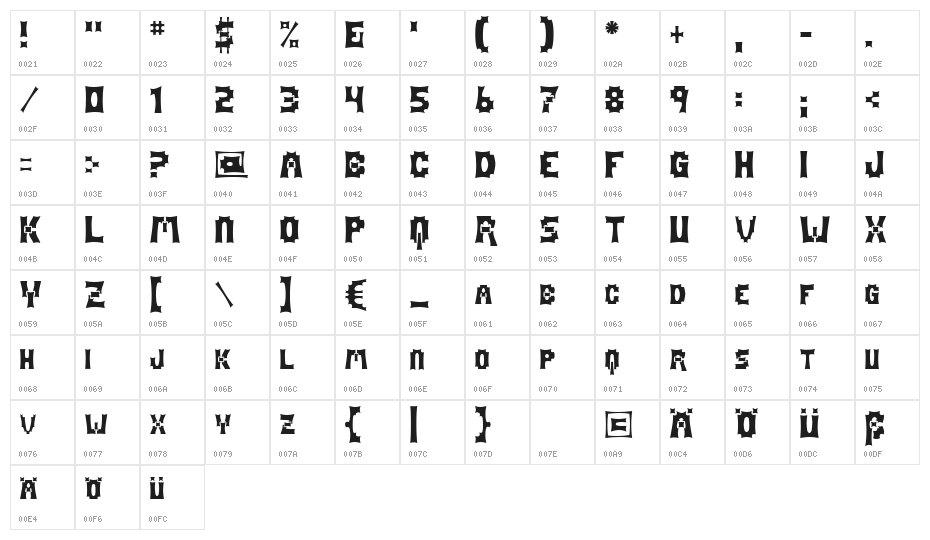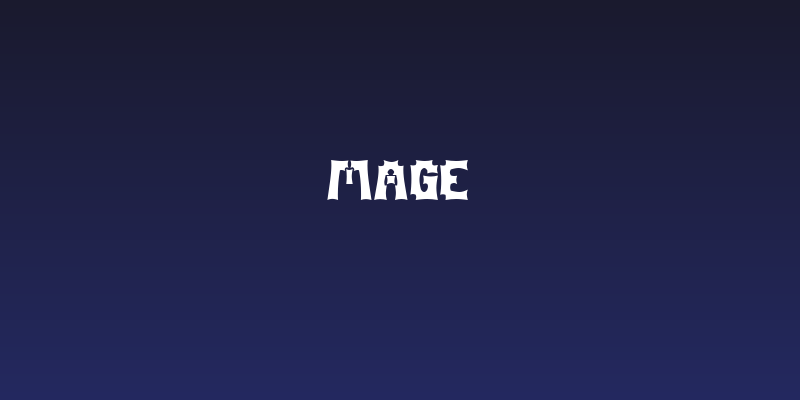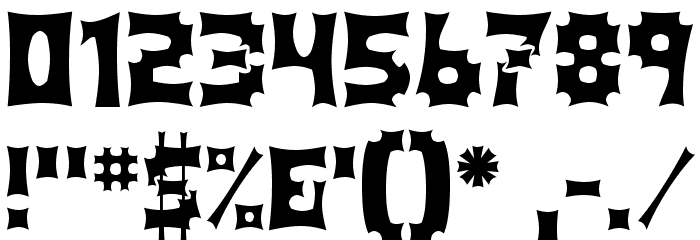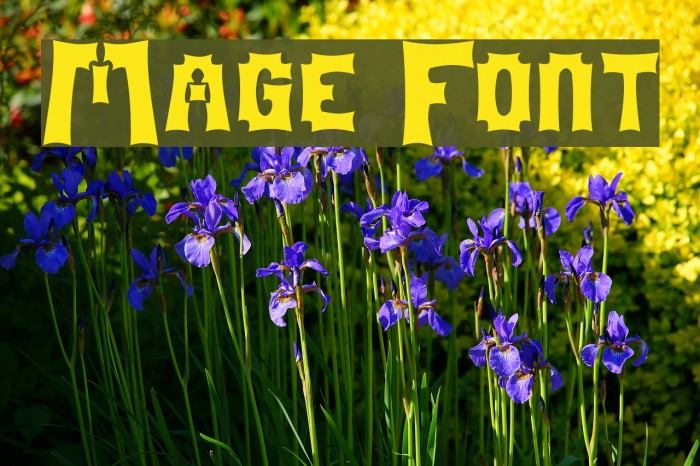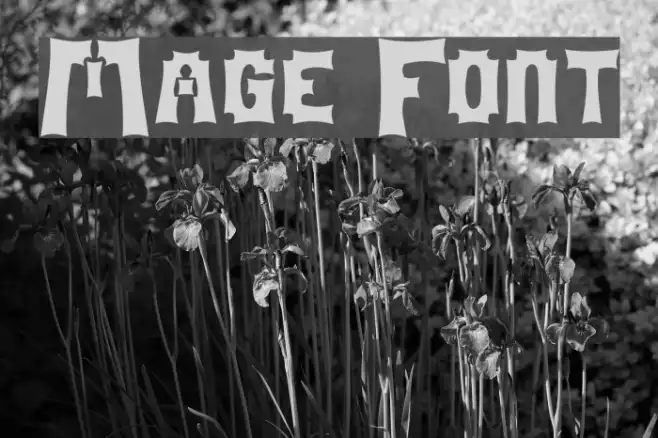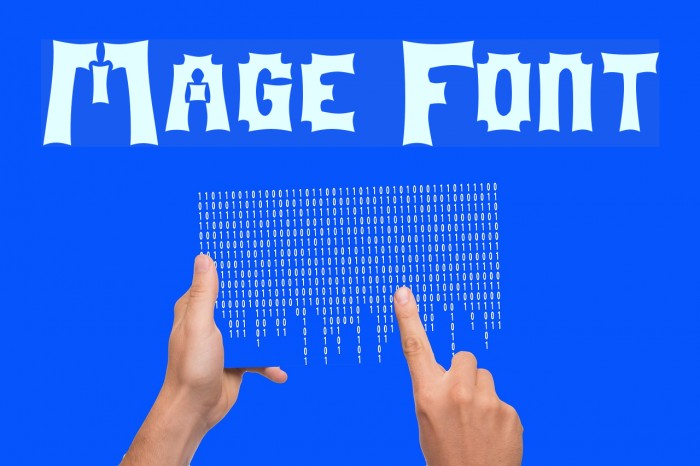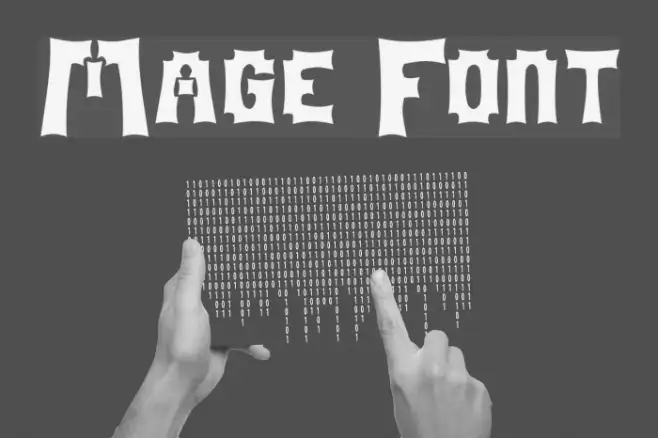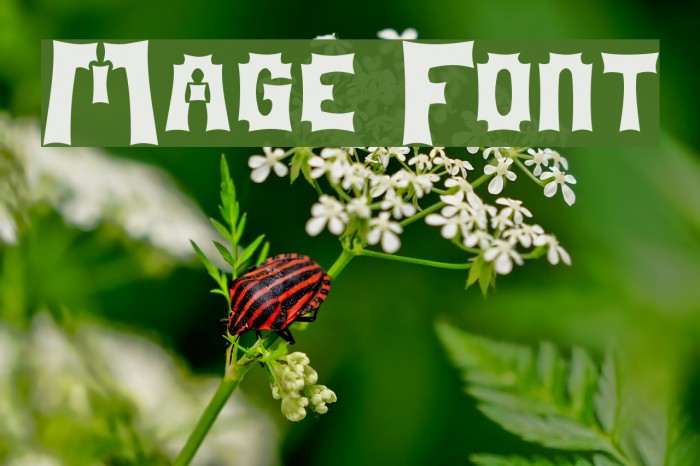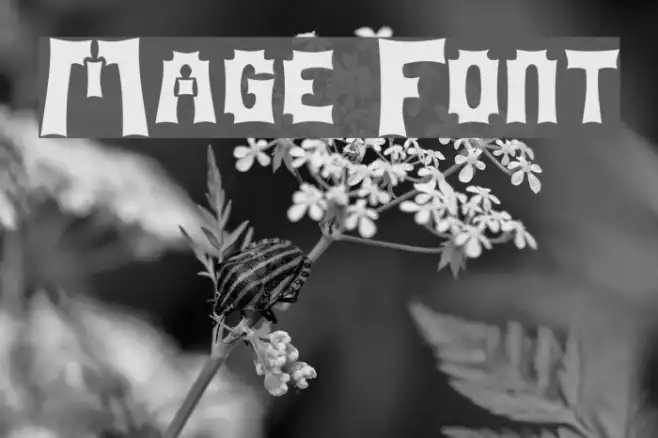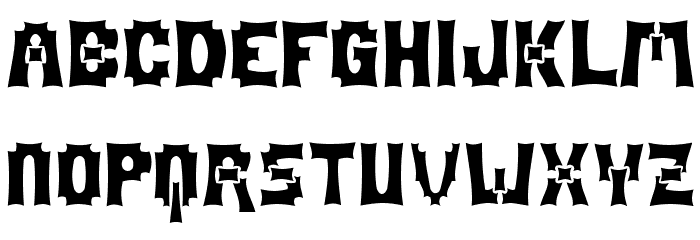
Mage Font
Mage Description
This font features a bold and dramatic style with sharp, angular edges and a gothic influence. Each character is designed with a unique, ornamental flair, incorporating pointed serifs and intricate details that give it a distinct, eye-catching appearance. The uppercase letters are particularly striking, with a heavy weight and strong presence, while the lowercase letters maintain the same boldness with slightly more subtle detailing. The numbers and special characters follow the same design principles, ensuring consistency across the entire typeface. This font is ideal for projects that require a strong visual impact and a touch of gothic or medieval aesthetics.
| Overall Style | Gothic, Decorative |
| Proposed Projects | Ideal for posters, album covers, Halloween-themed designs, and any project requiring a dramatic, gothic touch. |